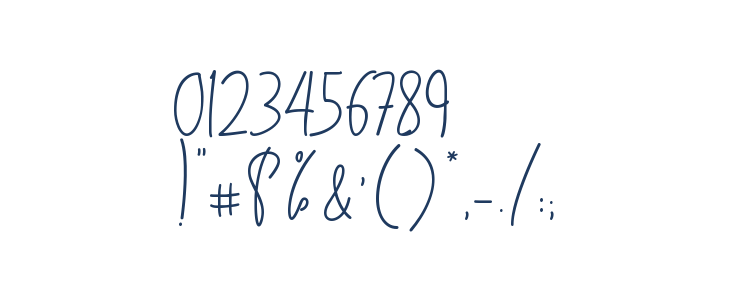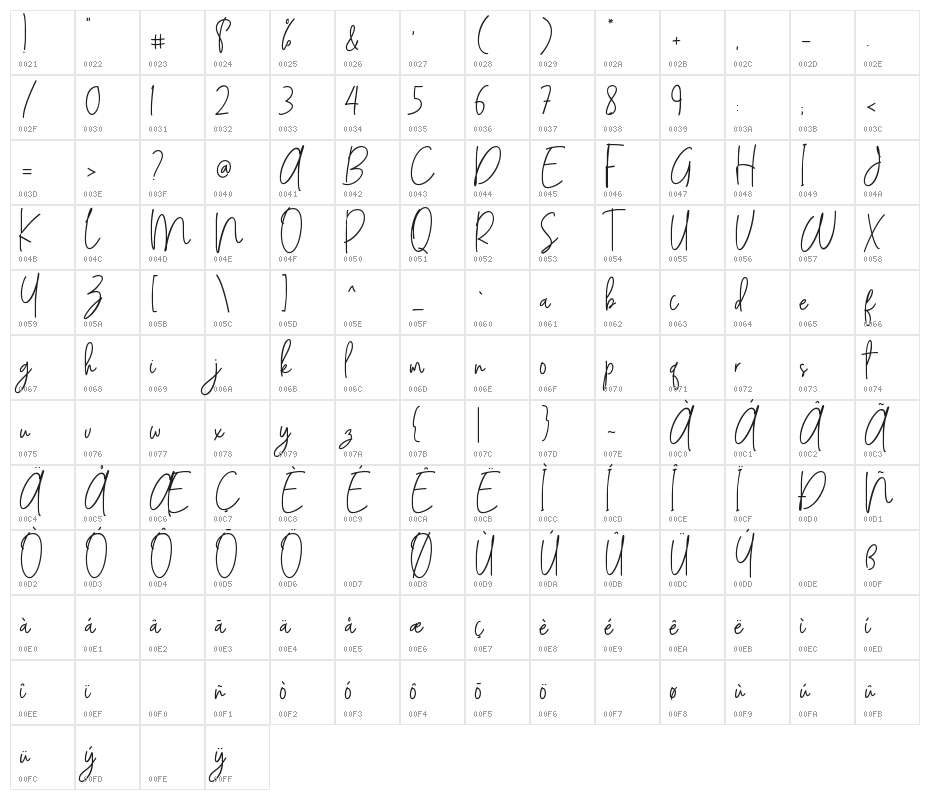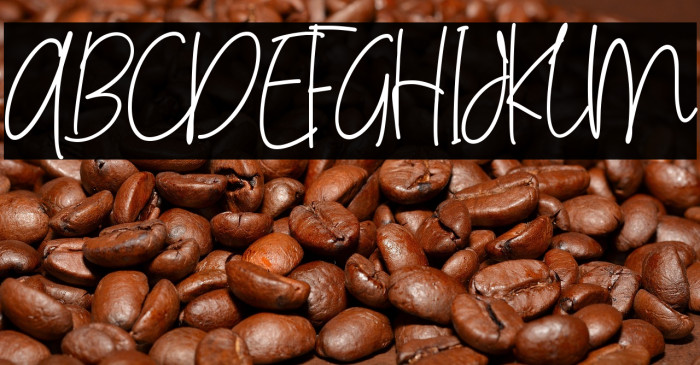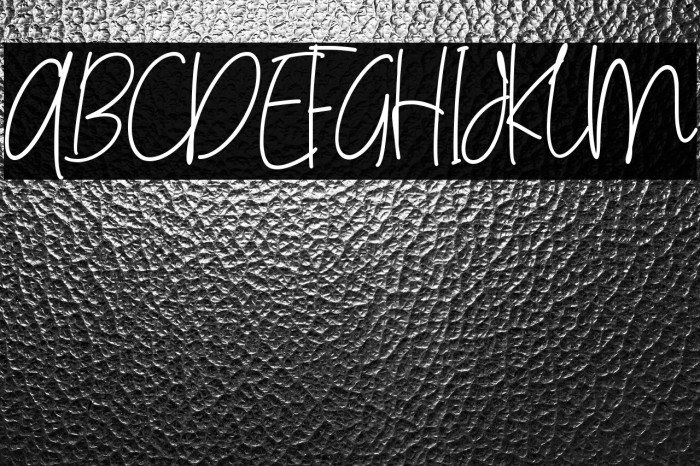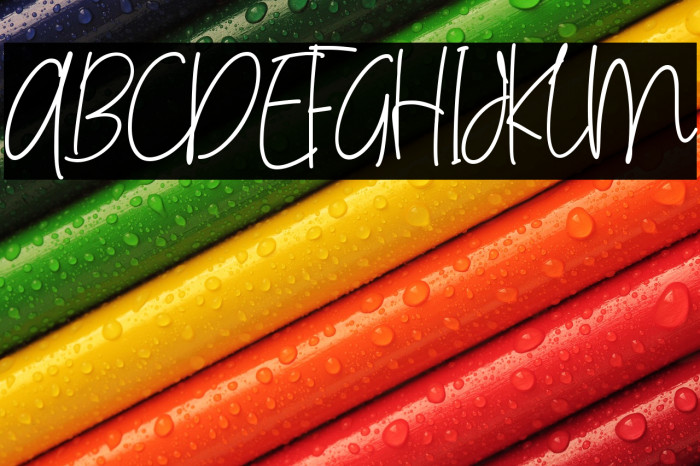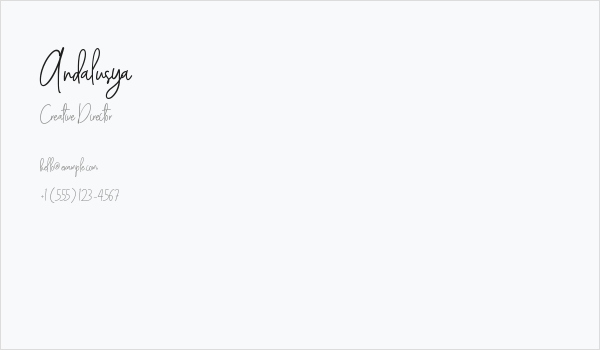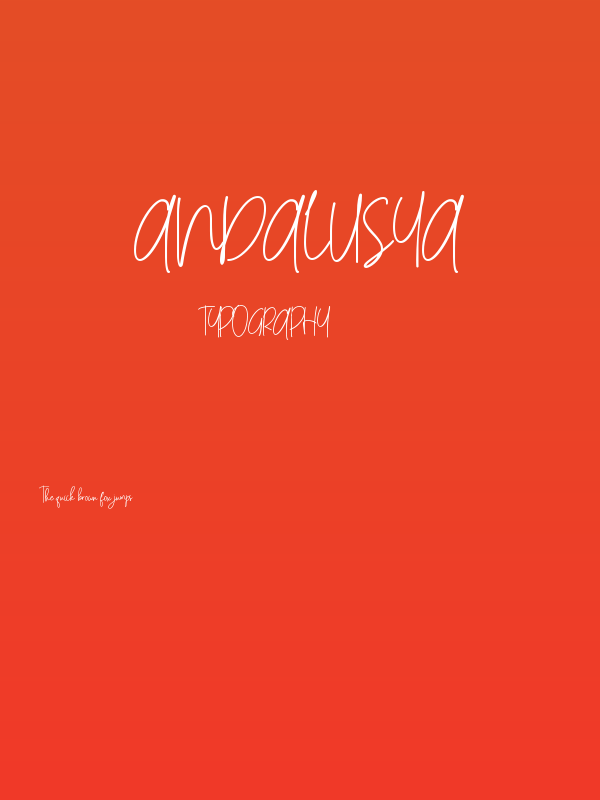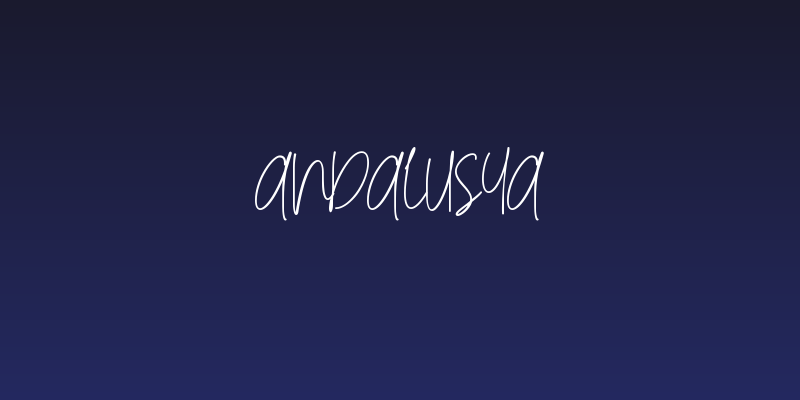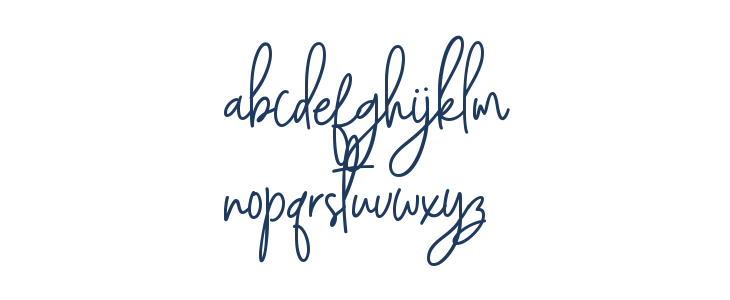
Andalusya Font
Andalusya Description
This font features a handwritten, cursive style with a playful and artistic flair. The letters are elongated and slightly slanted, giving it a dynamic and fluid appearance. The uppercase letters are tall and narrow, while the lowercase letters maintain a consistent flow, enhancing the script-like quality. Numbers and special characters follow the same aesthetic, ensuring a cohesive look across all text. The strokes are smooth and continuous, adding to the elegant and casual feel of the font.
| Overall Style | Casual, Artistic |
| Proposed Projects | Ideal for creative projects such as invitations, greeting cards, personal branding, and artistic posters. |